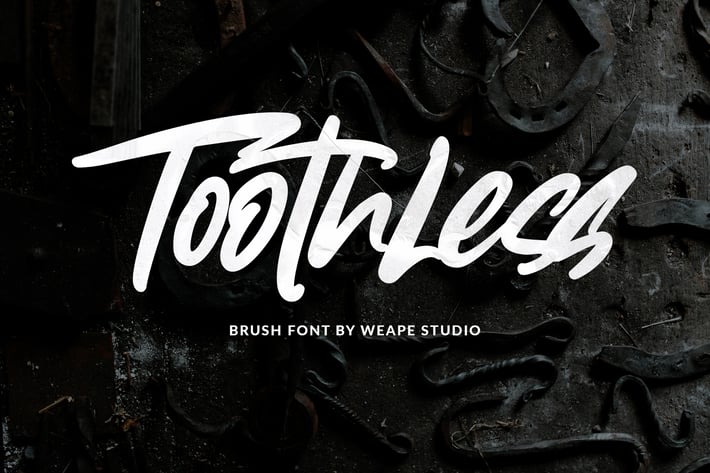
Toothless Brush Font
Introducing Toothless Brush Font, with the stroke of hand quick. You can use and enjoy Toothless, for promotional material and anything.
And this font perfect for signature logo, handwritten quotes, product packaging, fashion magazine, photography, merchandise, branding projects, poster, social media post, book cover, flyer, and advertising. You can create easily and make it as if you wrote it yourself.